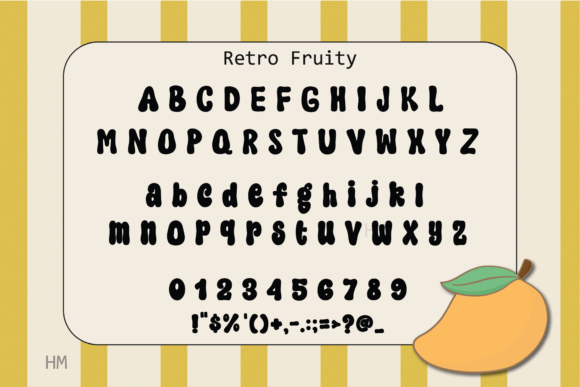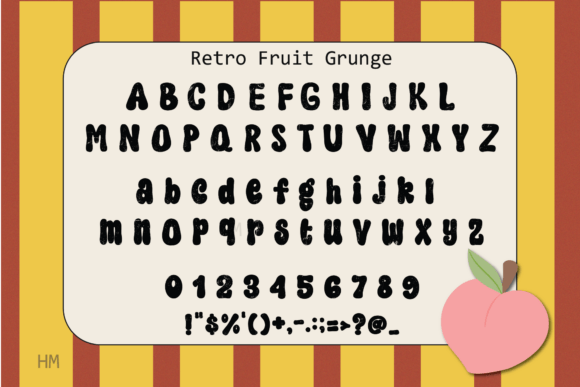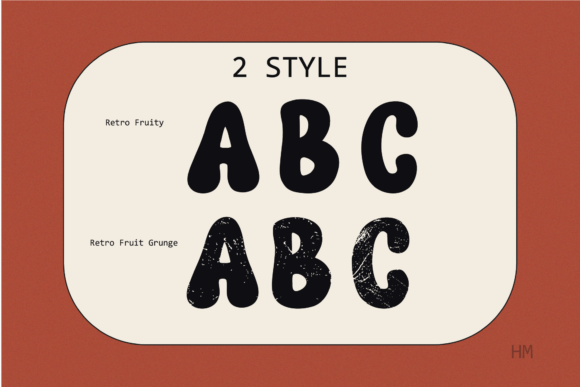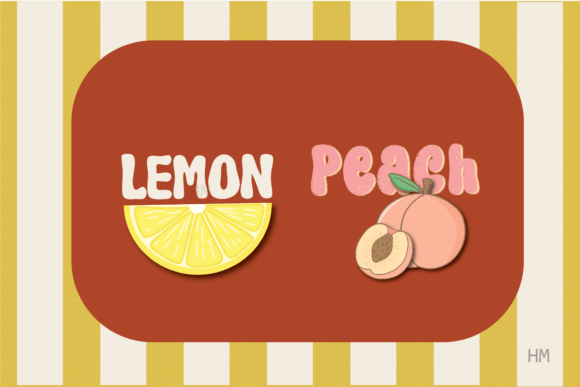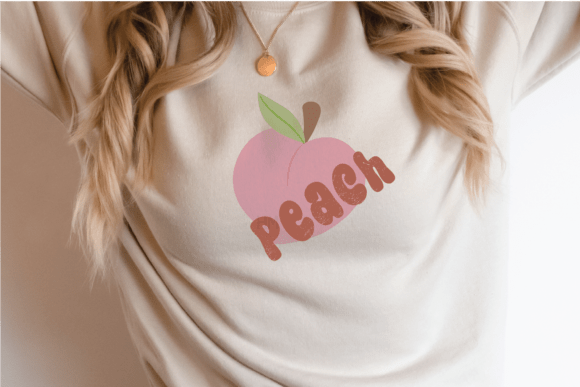
Introduction to Retro Fruity Font
Retro Fruity is a bold and bubbly retro display font inspired by juicy fruits and nostalgic 70s vibes.
This font duo comes in two stylesโa smooth, clean version (Retro Fruity) and a textured grunge version (Retro Fruit Grunge), making it perfect for your fun and fruity design projects Ideal for t-shirt designs, stickers, product packaging, branding, kidsโ graphics, summer themes, and more.
Key Features of Retro Fruity Font